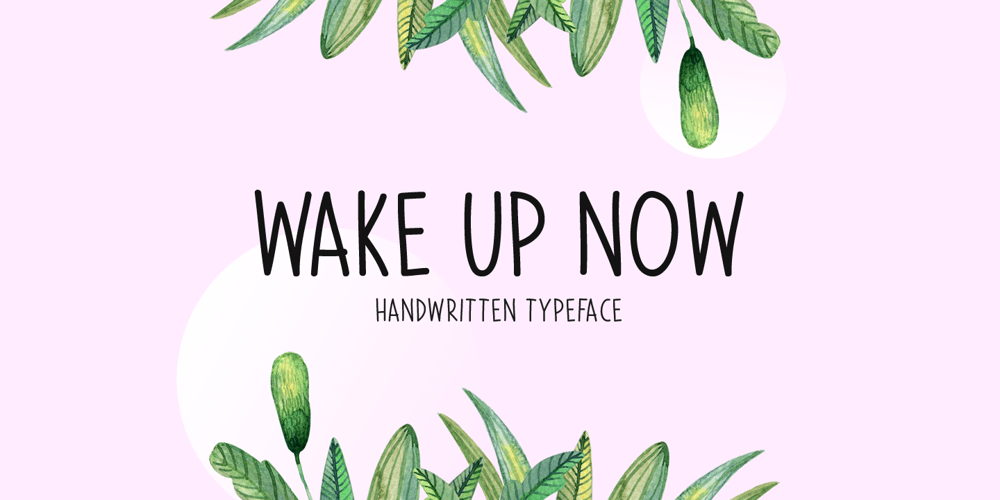
Wake Up Now
Wake Up Now font
Wake Up Now Font Family was designed by Md Shohail Bhuian and published by Seemly Fonts. Wake Up Now contains 1 styles and family package options. Wake Up Now is a cute and simple lettered handwritten font that can be used for all chalkboard quotes or teaching material! Its authentic look will add a realistic feel to your designs.